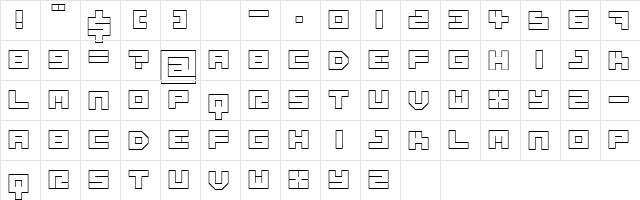
Miss Ellen Regular
Design Context for Miss Ellen Typeface
Miss Ellen is a composed and adaptable typeface that performs quietly and consistently across a wide range of design contexts.